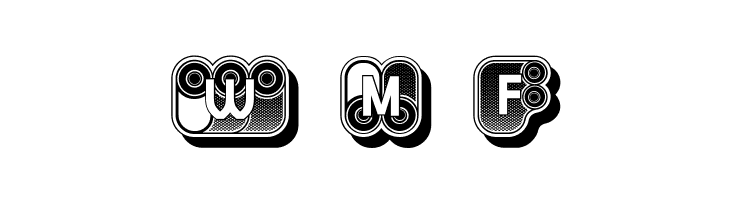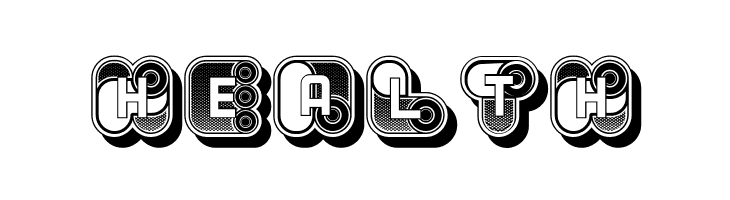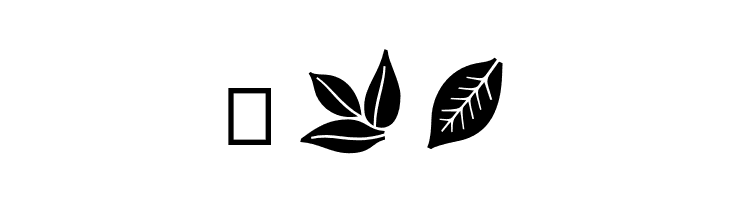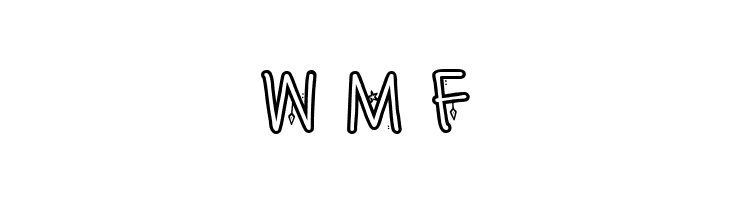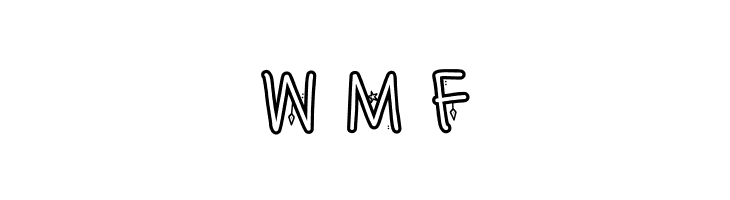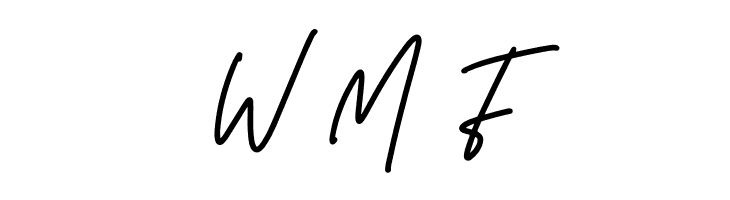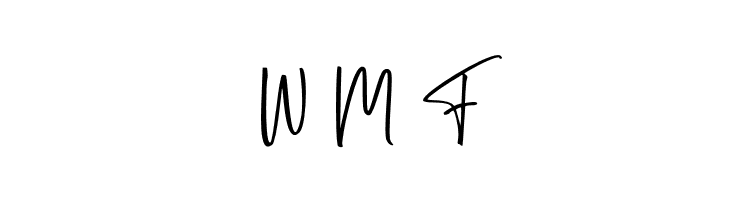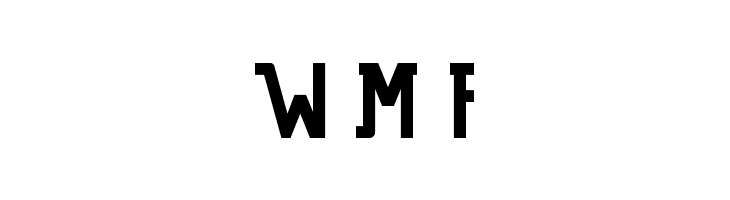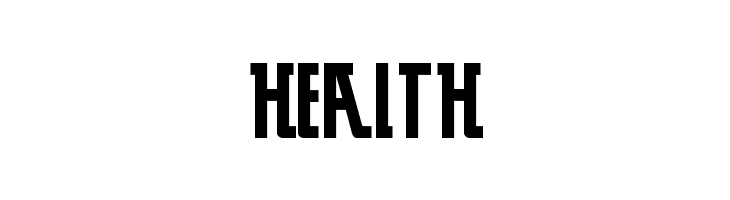
A bold, decorative font with a 3D effect and intricate patterns.
A geometric, monospaced font mimicking 14-segment LED displays.
Nature-inspired ornamental designs featuring leaves and coffee beans in bold silhouettes.
A festive, decorative font with Christmas-themed embellishments on each character.
A festive, ornament-adorned font perfect for holiday projects.
A fluid and elegant handwritten script with dynamic strokes.
Delicate hand-drawn botanical and floral illustration set.
A bold, fragmented font with a textured, three-dimensional effect.
A lively, expressive handwritten font with dynamic strokes.
A bold, geometric font with strong, uniform strokes and a modern style.